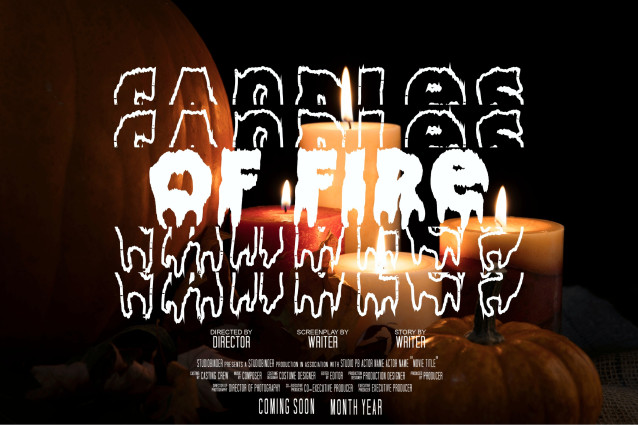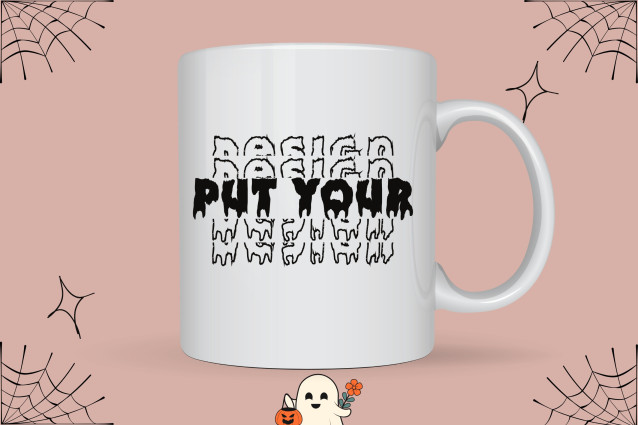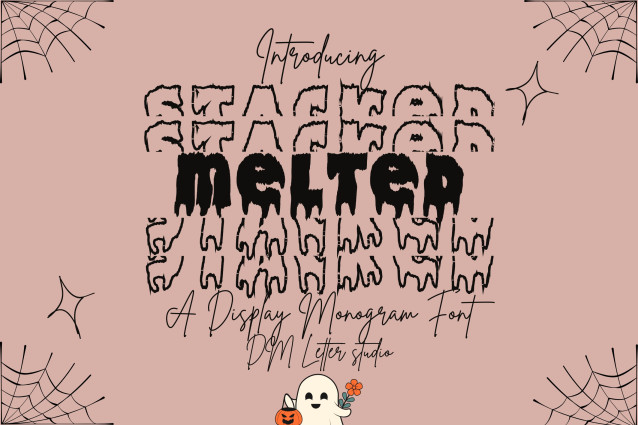
Melted Stacked Monogram Font
Melted Stacked Monogram is a spooky and dramatic font that stacks letters vertically while dripping with eerie personality. Designed with a horror-inspired vibe, it’s ideal for Halloween-themed monograms, gothic initials, eerie logos, and chilling crafts. The melted effect makes every letter feel like it’s oozing off the screen, giving your designs a haunted, unforgettable look.